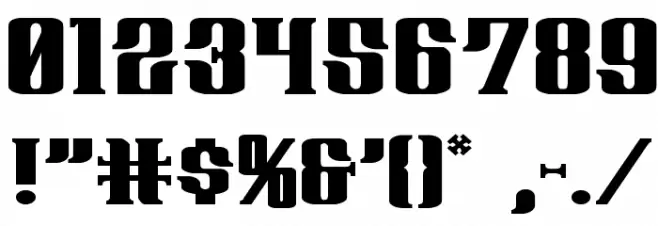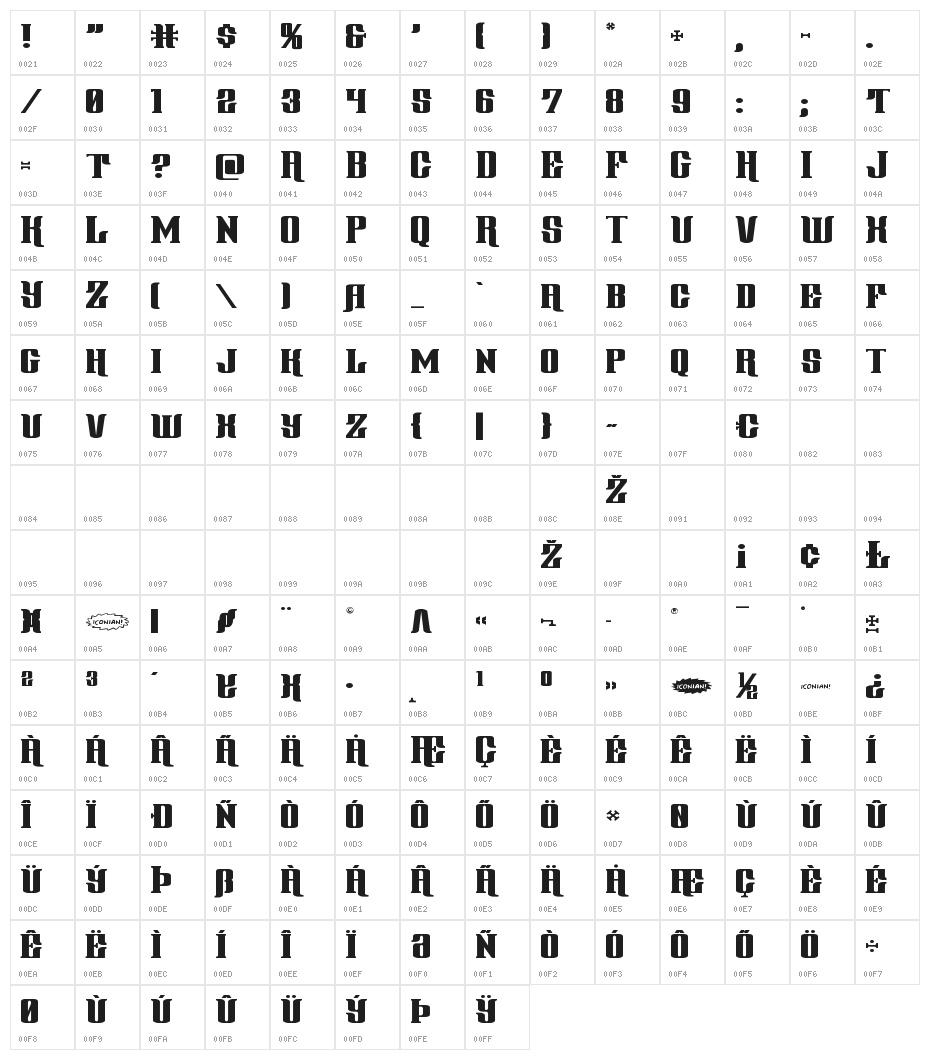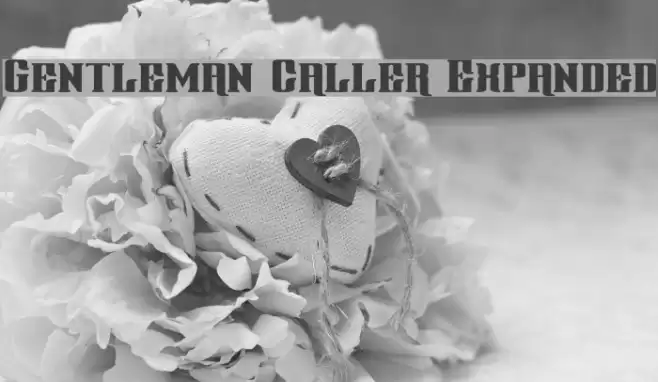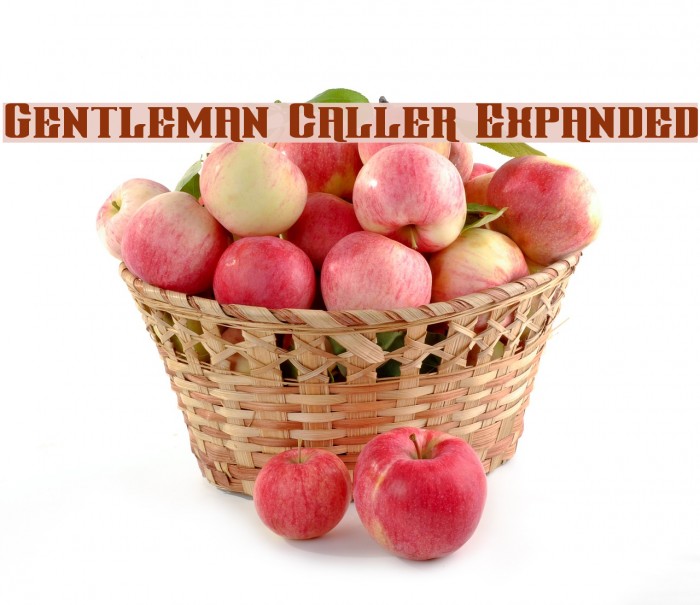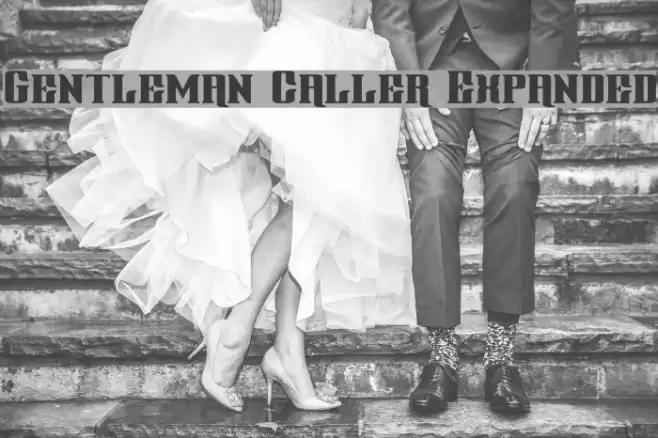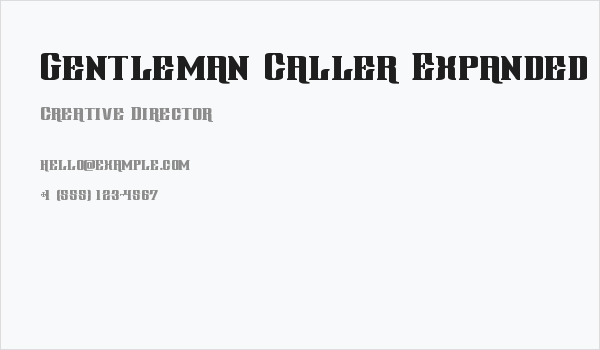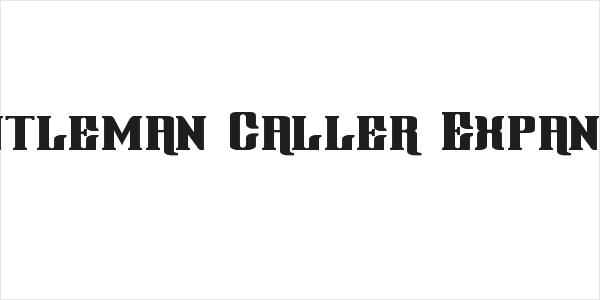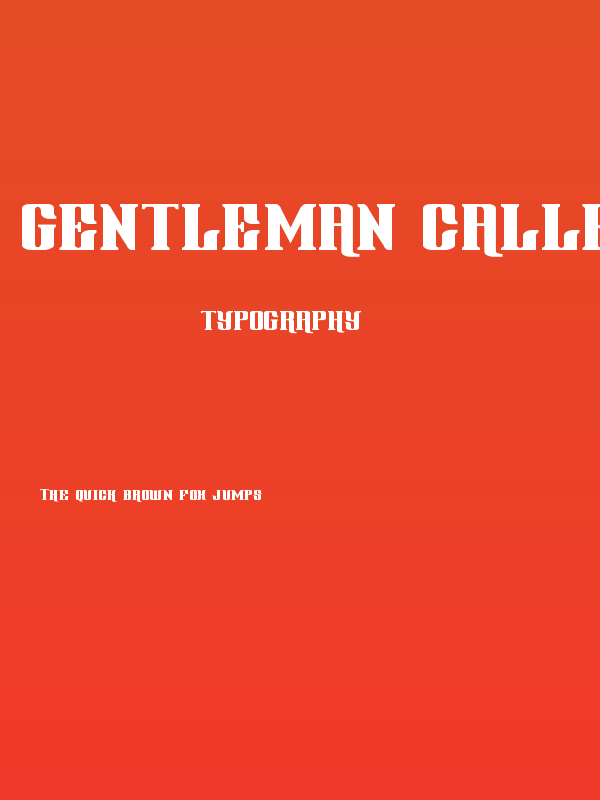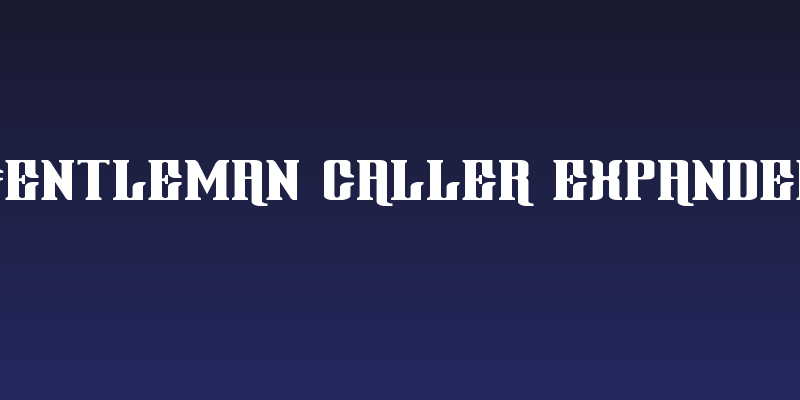
Gentleman Caller Expanded Font
Gentleman Caller Expanded Description
This font features a bold and striking design with a strong presence, characterized by its expanded width and slab serif style. The letters are robust and impactful, with thick strokes and minimal contrast, making them highly legible and attention-grabbing. The uppercase and lowercase letters maintain a consistent style, while the numerals and special characters complement the overall aesthetic. The font's design is reminiscent of vintage or retro styles, yet it maintains a modern appeal, suitable for a variety of design applications.
Overall StyleVintage
Proposed ProjectsIdeal for use in branding, poster design, headlines, and any project requiring a strong, impactful typeface.